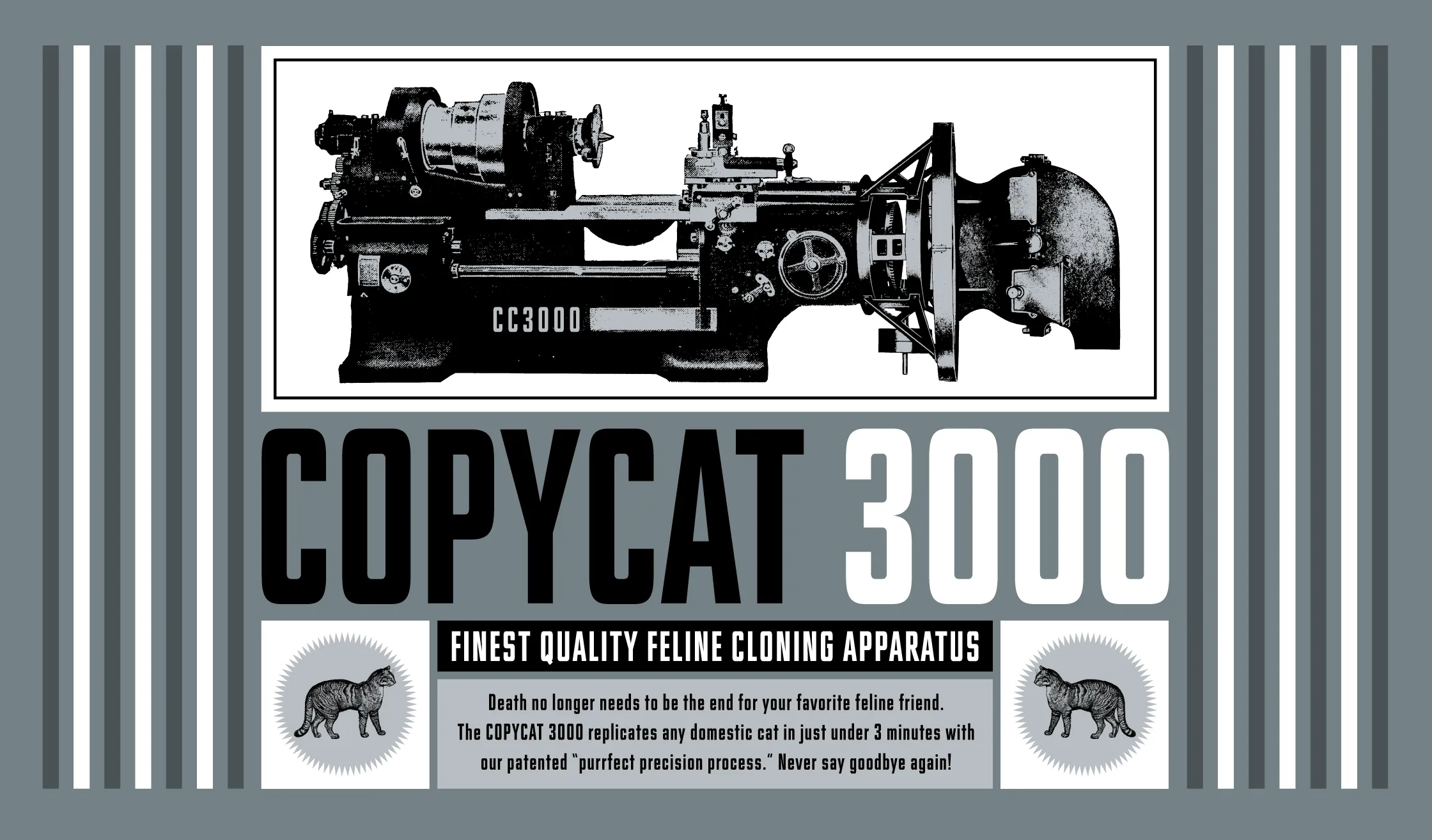
Filmotype Glenlake Font
The Filmotype Glenlake Font is perfect for vintage corporate branding, classic business signage, retro professional communications, mid-century architectural projects, distinguished institutional identities, authentic 1950s office designs, period-accurate commercial displays, vintage industrial graphics, classic suburban business materials, and prestigious retro corporate presentations.
What makes the Filmotype Glenlake Font so exciting is its masterful embodiment of mid-century corporate sophistication with authentic Filmotype professionalism that creates an unmistakable connection to the golden age of American business design and commercial excellence. This distinguished typeface features solid Filmotype construction, professional character proportions, and classic mid-century design elements that perfectly capture the essence of vintage corporate culture and authentic business sophistication. The font's professional personality and Filmotype reliability make it an exceptional choice for corporate brands, business institutions, and professional projects seeking to communicate trustworthiness, stability, and authentic mid-century business credibility with genuine period authority.
The Filmotype Glenlake Font family includes corporate variations and professional alternates, featuring reliable Filmotype weights, business-focused character options, and mid-century corporate styling elements. Each variation maintains the signature professional appeal while offering different levels of corporate expression and Filmotype authority, giving designers extensive creative possibilities for crafting trustworthy business communications and distinguished corporate brand personalities that honor mid-century professional traditions.
The solid corporate characteristics of Filmotype Glenlake Font showcase masterful professional typography preservation, with each letter featuring genuine Filmotype construction elements and mid-century business design details that enhance its corporate credibility and professional authenticity. The font's comprehensive character set includes uppercase and lowercase letters, numerals, corporate punctuation, and business symbols, ensuring complete functionality for diverse professional projects and international corporate applications.
Expertly engineered for both digital and print corporate applications, this reliable font maintains its Filmotype character and professional integrity across all sizes and formats. From large-scale corporate installations to detailed business documents, Filmotype Glenlake Font performs exceptionally while preserving its distinctive professional personality and authentic mid-century corporate appeal.